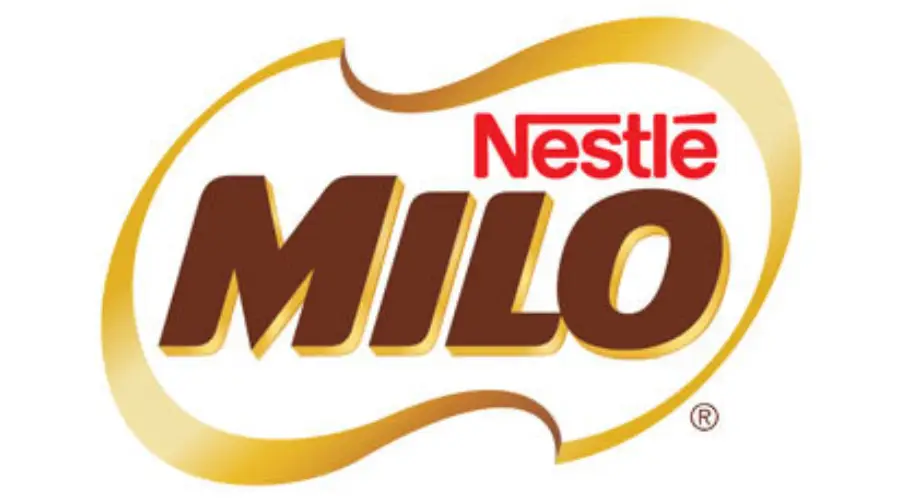
The Nestlé Milo Font is a distinctive typeface associated with the iconic chocolate malt drink, MILO, by Nestlé. Known for its energy-boosting and nutritious qualities, MILO has become a global favorite. The font used in its logo plays a crucial role in its branding, exuding a sporty, energetic, and modern vibe.
While Nestlé has not officially released the exact font used in the MILO logo, design experts have identified Hussar Gothic Oblique by Robert Jablonski as the closest match. This font captures the bold, dynamic, and slightly slanted style of the MILO logo, making it a popular choice for recreating its look.
If you’re looking for fonts with a similar aesthetic, here are some great alternatives:
These fonts are excellent for projects that aim to replicate the energetic and youthful spirit of the MILO brand.
Poppins is the best font to pair with the Nestle Milo font style.
Here is why:
Second-best choice: Montserrat. It is similar to Poppins and also works well if you want a slightly different feel.
Simple rule: Use Milo (or Hussar Gothic Oblique) for titles and big text. Use Poppins for everything else.
The Nestlé Milo Font is a custom, proprietary typeface owned by Nestlé and not publicly available. The closest alternative is Hussar Gothic Oblique, a bold, slanted, and energetic font that captures Milo’s sporty character. For best design results, pair it with Poppins. Use Milo for headlines and Poppins for body text to create a balanced, modern, and highly readable look.